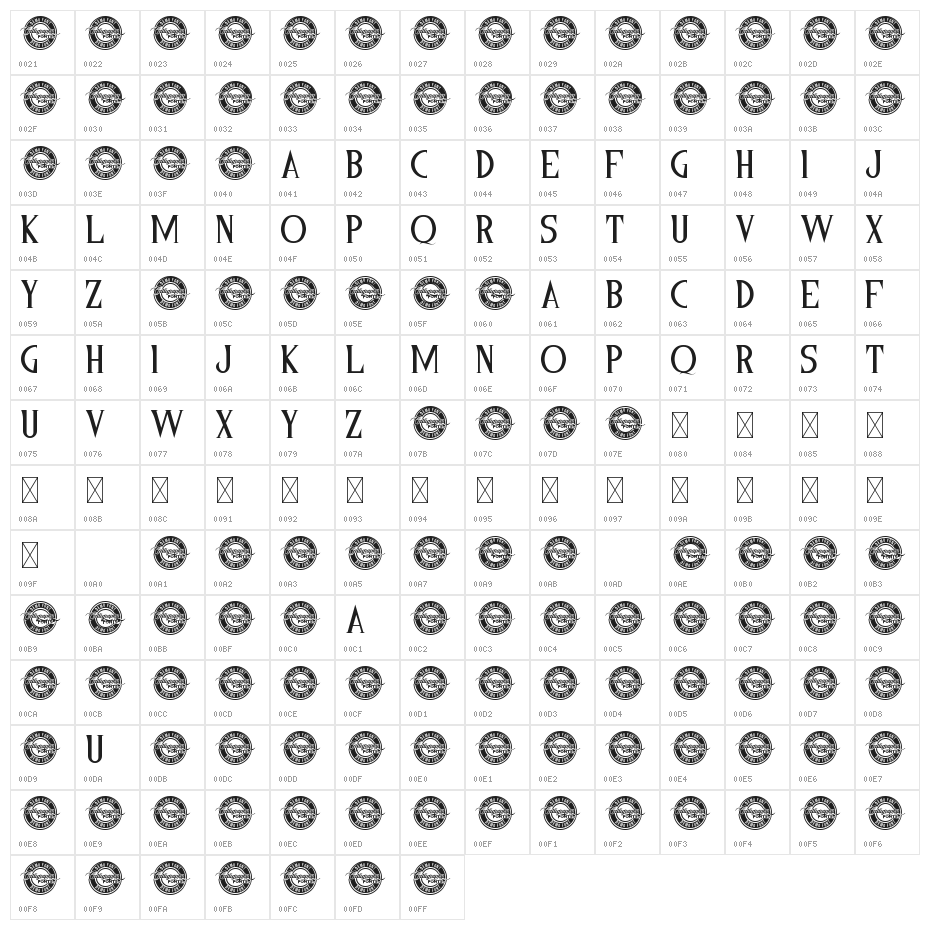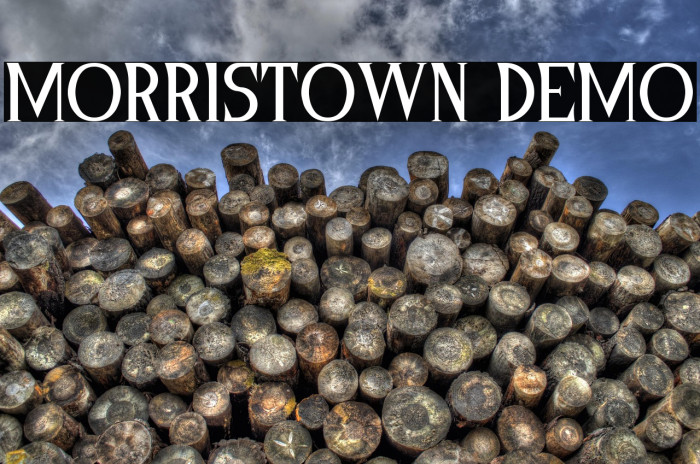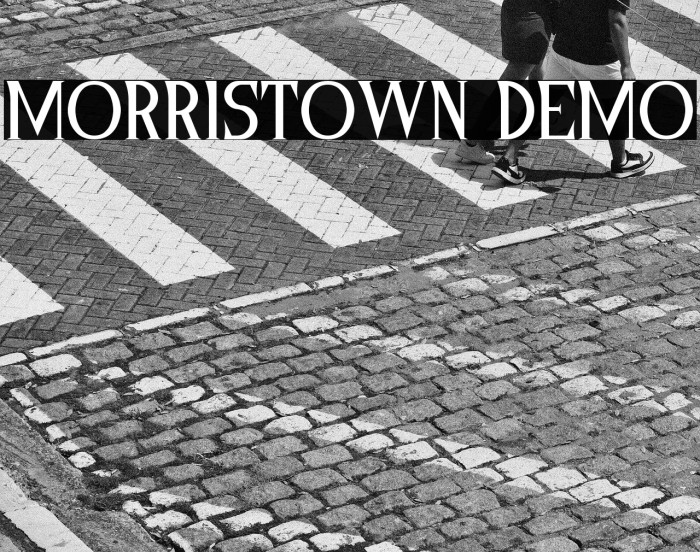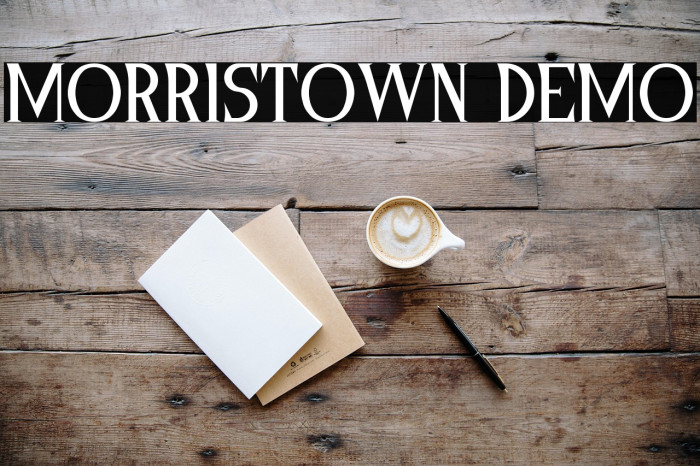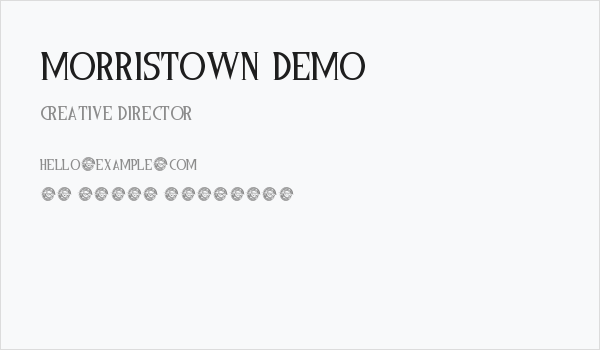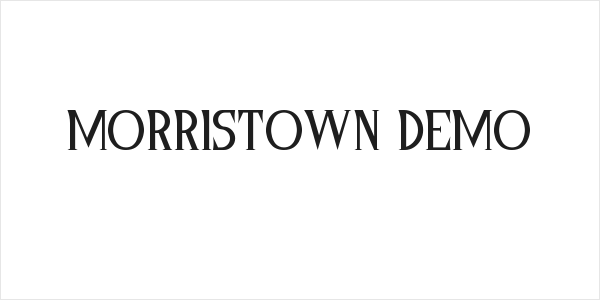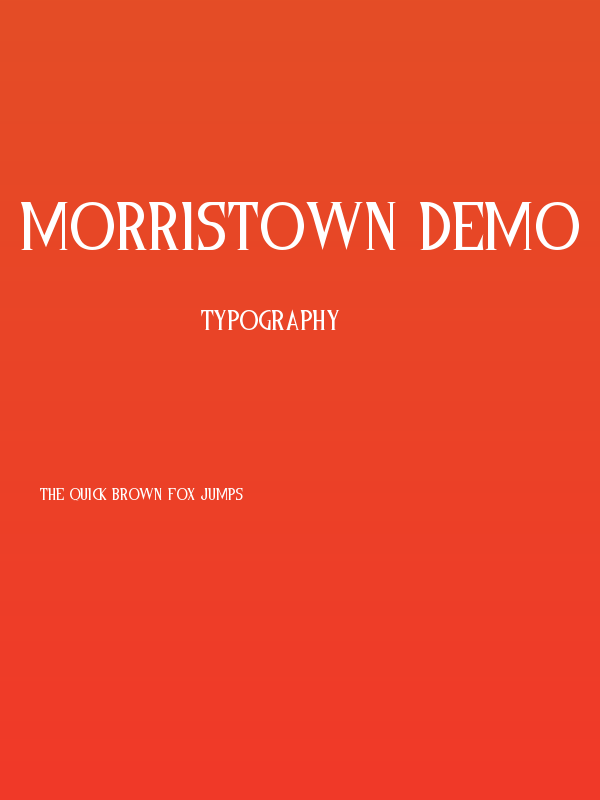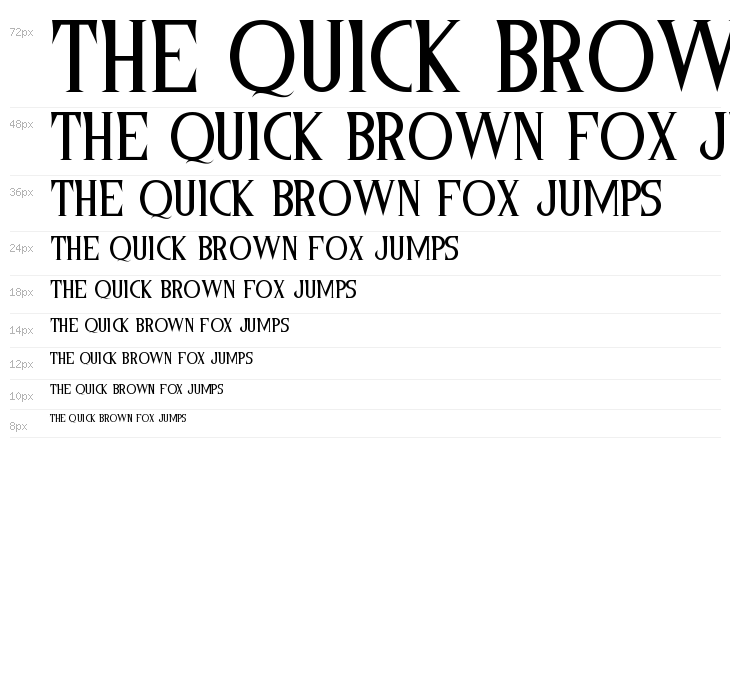
Morristown Demo Font
Morristown Demo Description
This font features a classic serif style with elegant, elongated letterforms. The serifs are sharp and pronounced, giving the typeface a sophisticated and formal appearance. The vertical strokes are slightly thicker than the horizontal ones, providing a subtle contrast that enhances readability. The overall design is reminiscent of traditional calligraphy, with a modern twist that makes it suitable for both contemporary and vintage projects. The spacing between characters is balanced, ensuring clarity and legibility even at smaller sizes.
| Proposed Projects | Ideal for use in formal invitations, book covers, branding for luxury products, and editorial design. |